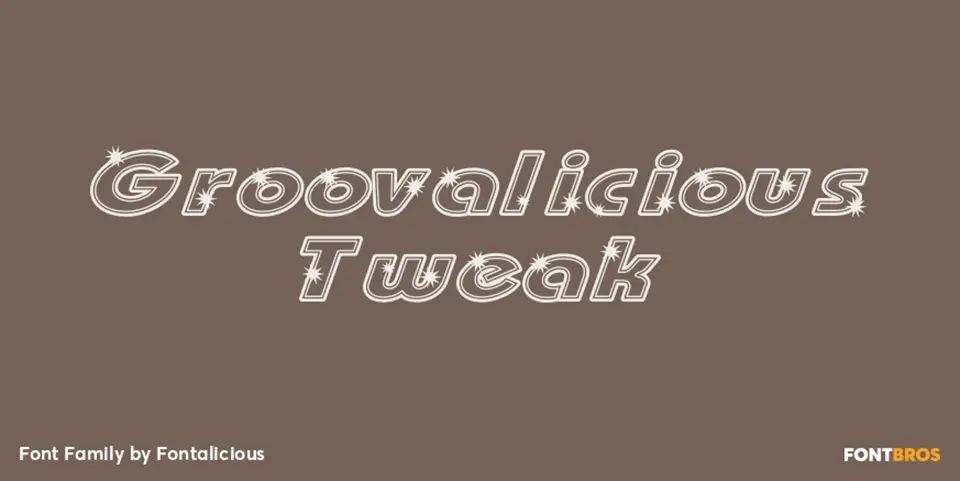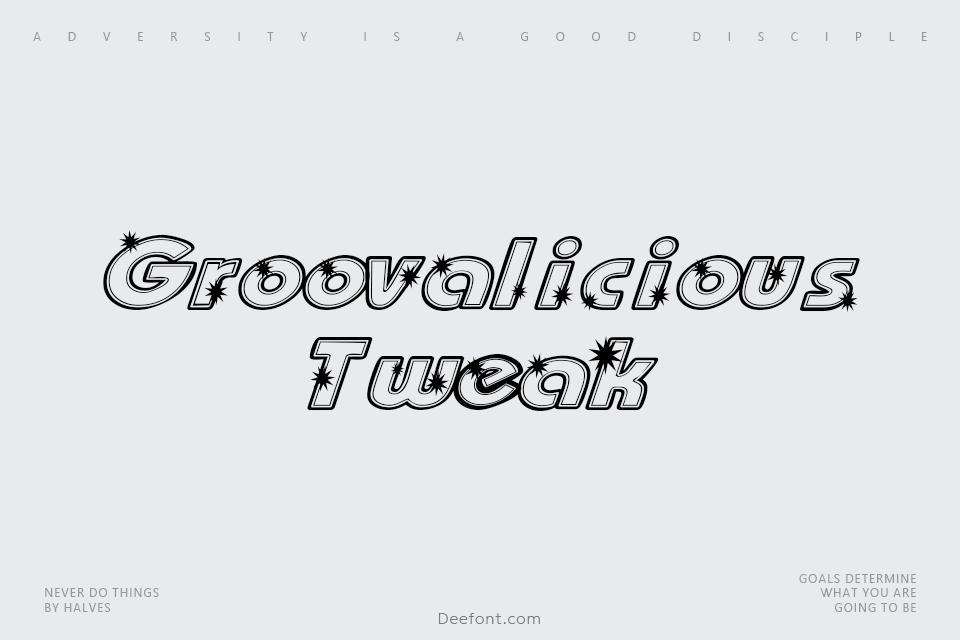
Groovalicious Tweak Font
Groovalicious Tweak is a funky, retro-inspired display font with bold, playful letterforms perfect for headlines, posters, and creative projects. This groovy typeface features rounded, flowing characters reminiscent of 1970s design aesthetics. The font excels at capturing attention with its unique, expressive style while maintaining excellent readability for display purposes. Ideal for music-related designs, vintage branding, and contemporary projects seeking nostalgic flair.